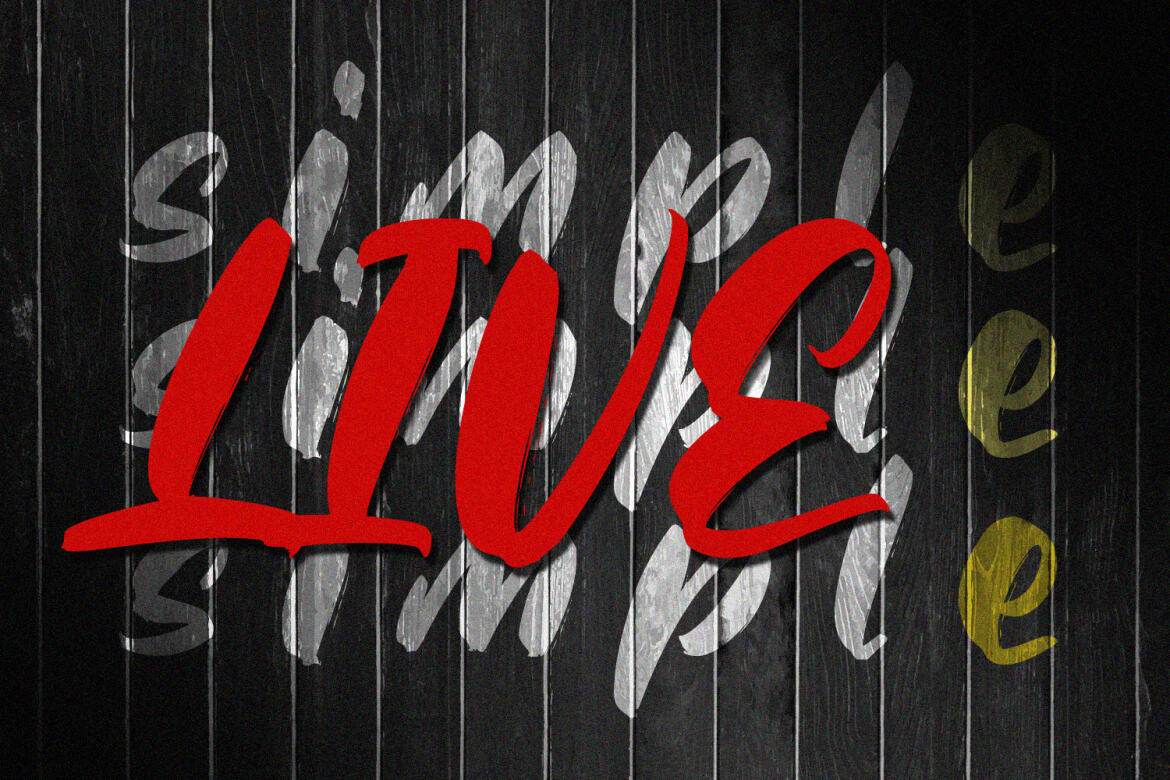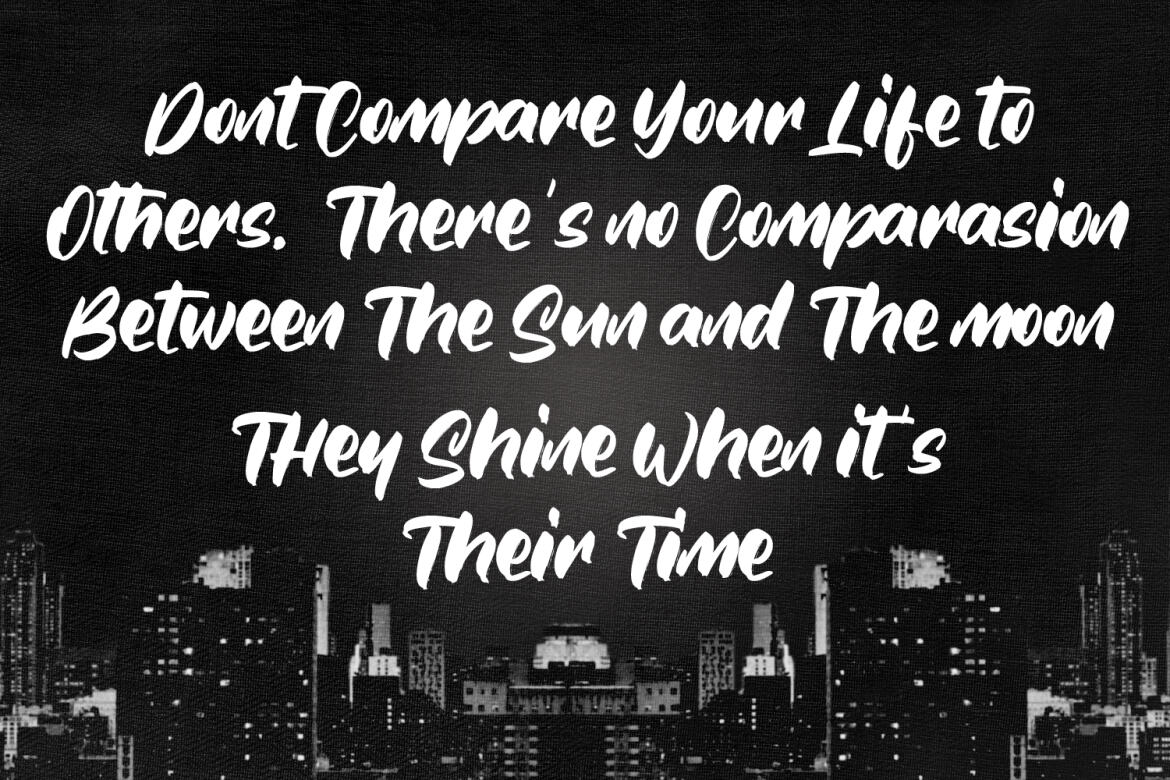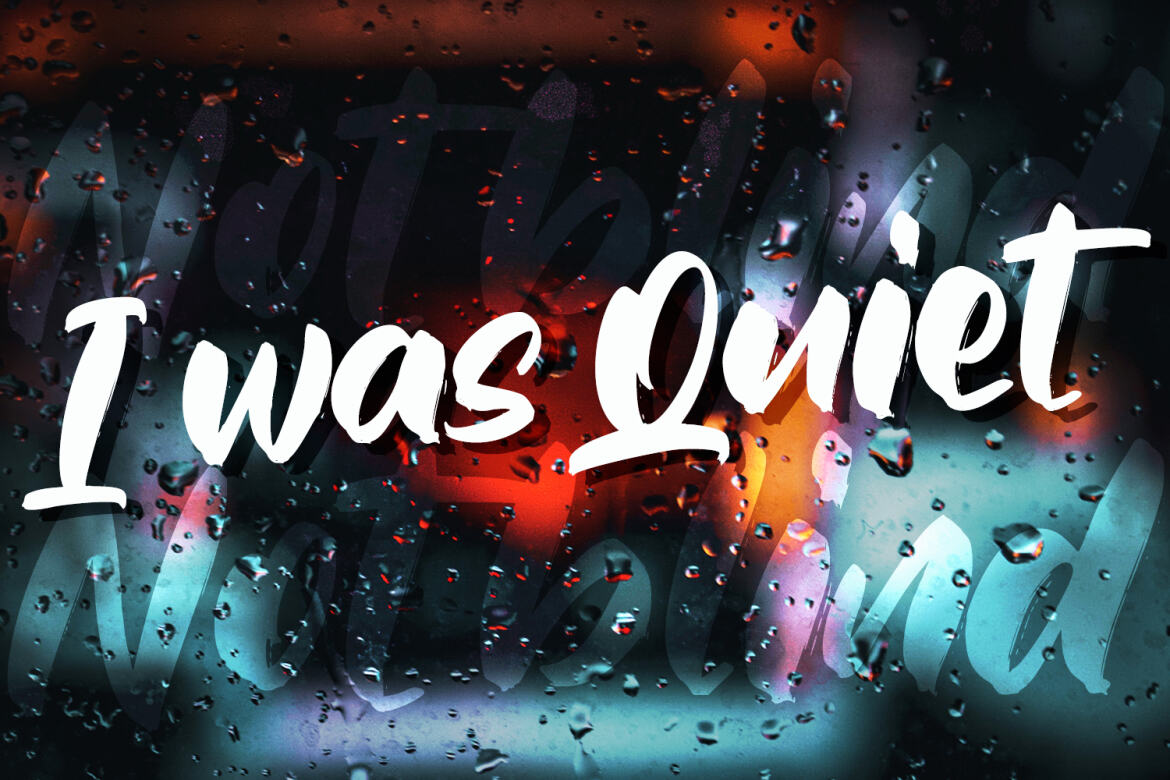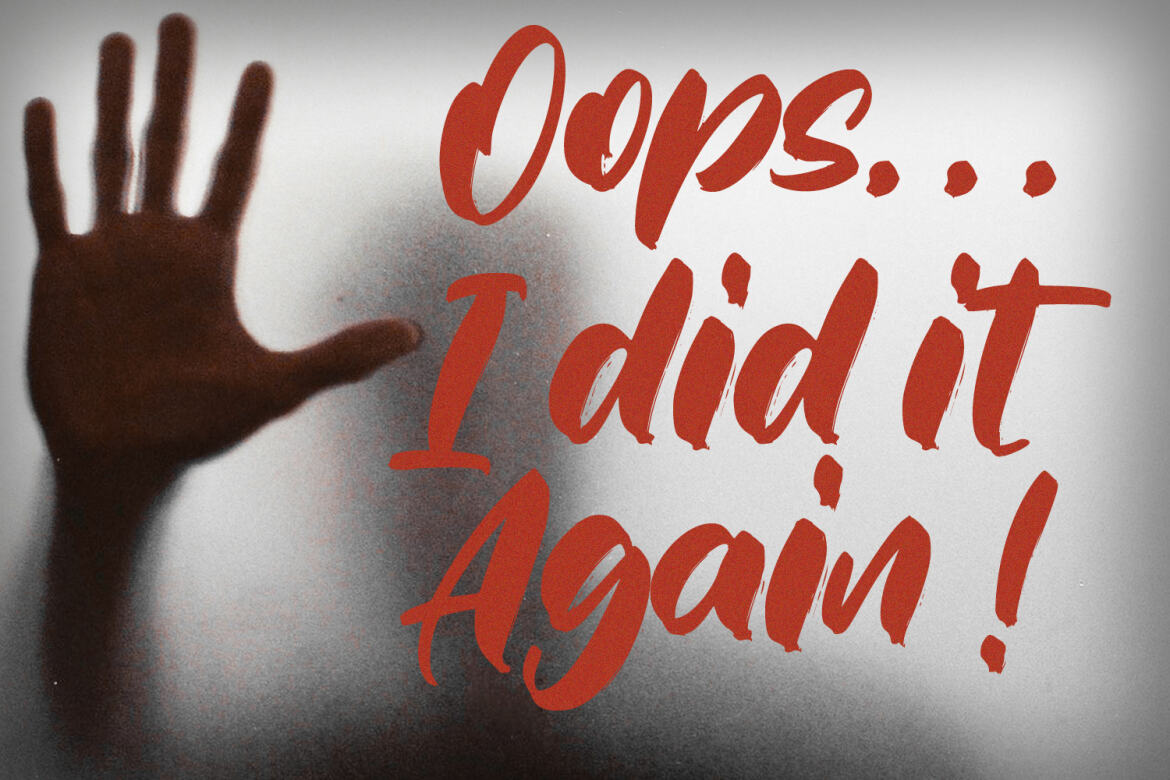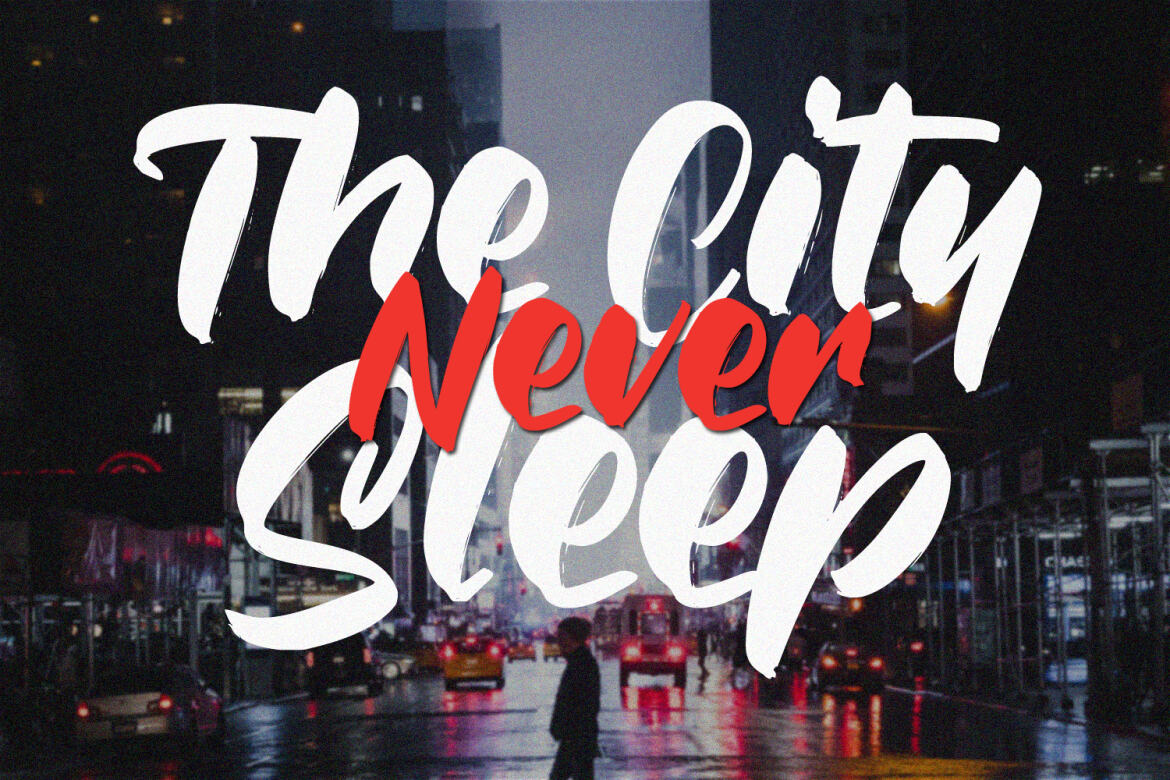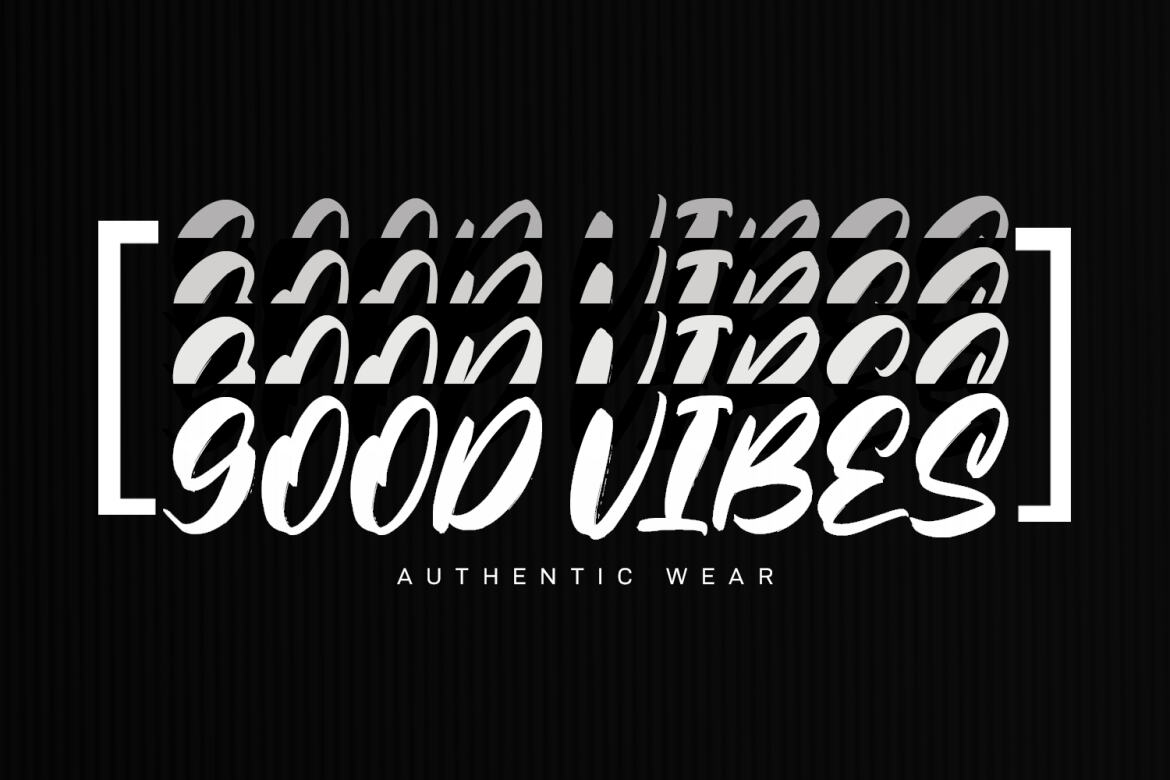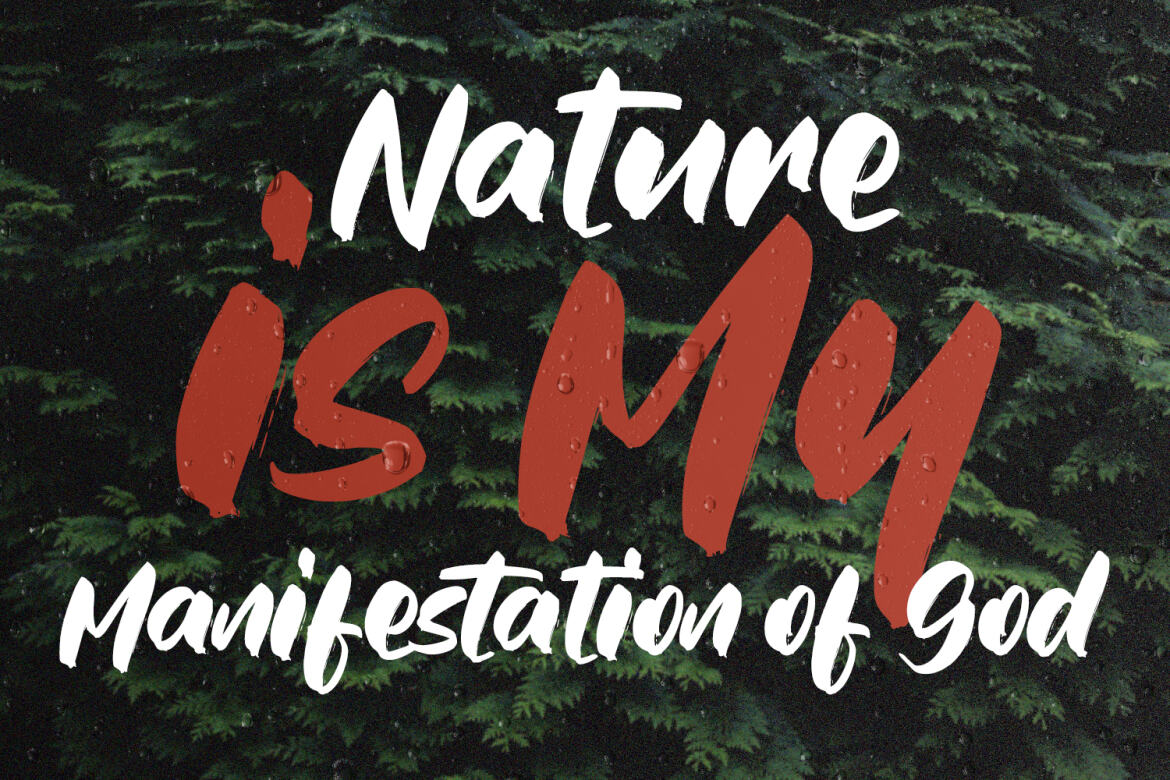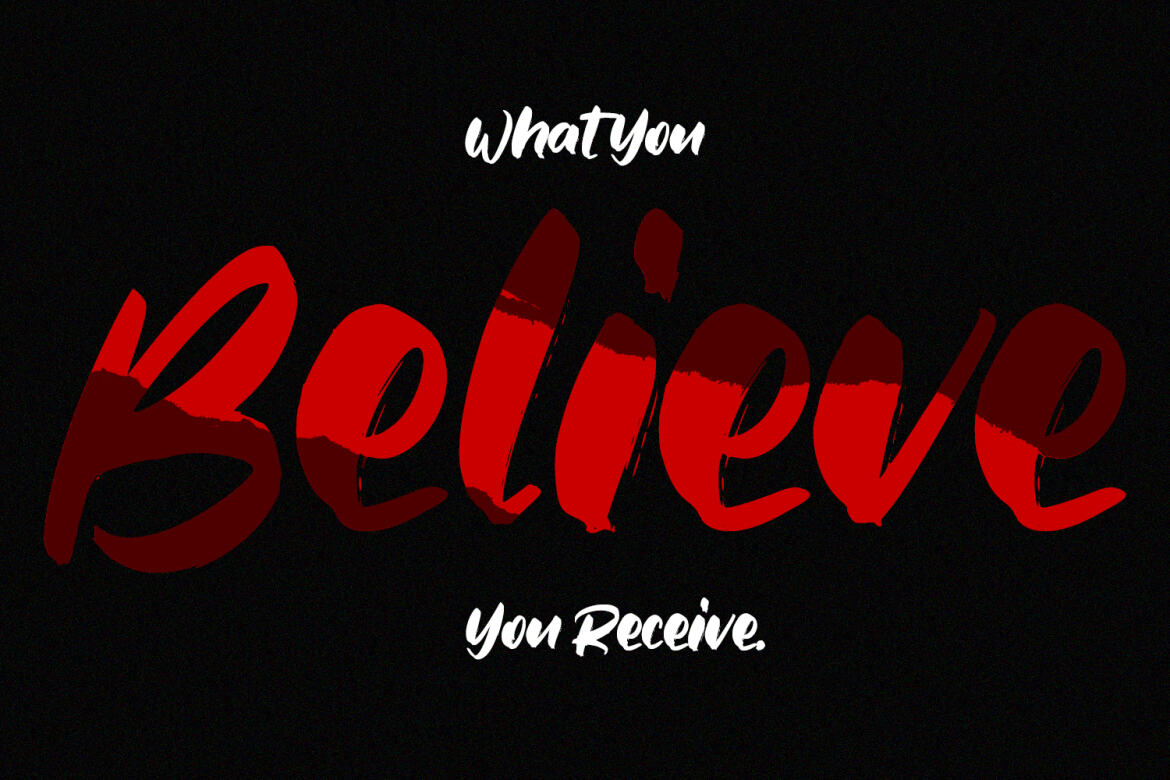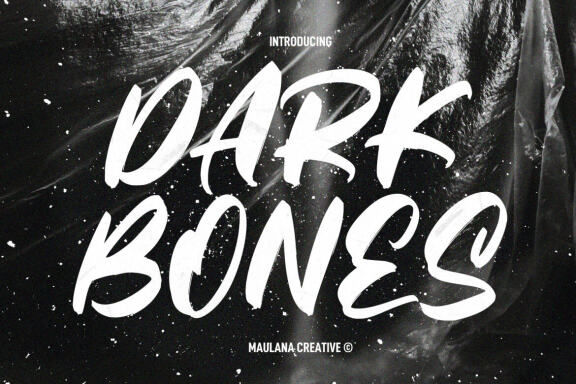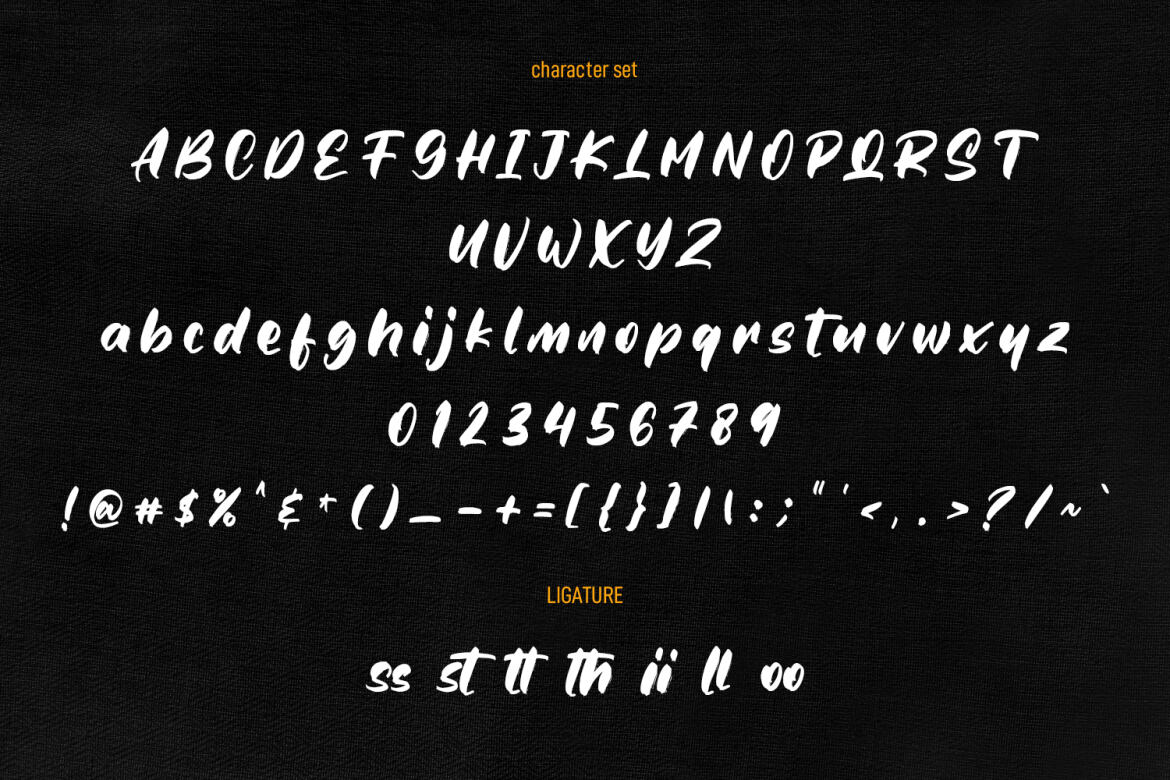
Darkbones FREE Handwritten Font
Darkbones
Darkbones is a fancy handwritten brush font. With medium rough brush stroke, fun character with a bit of ligatures and alternates. To give you an extra creative work. Darkbones font support multilingual more than 100+ language. This font is good for logo design, Social media, Movie Titles, Books Titles, a short text even a long text letter and good for your secondary text font with sans or serif. Make a stunning work with Darkbones font.